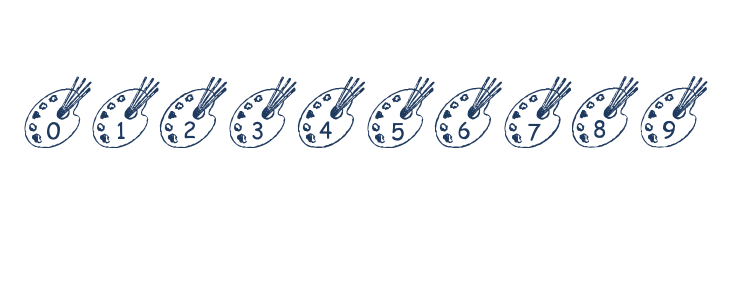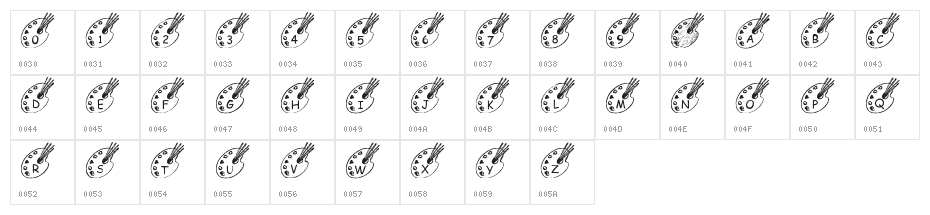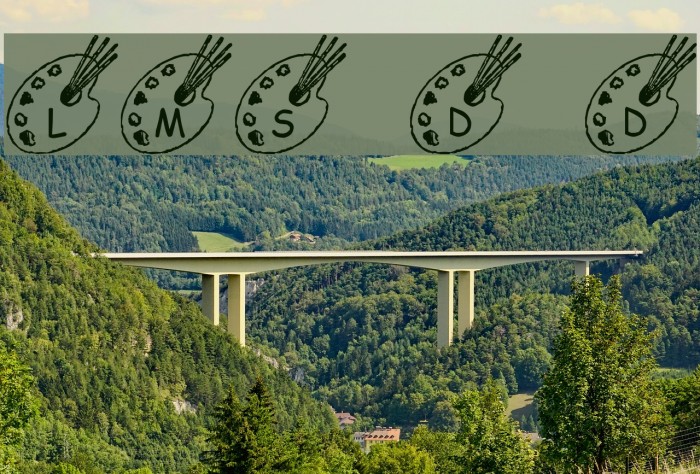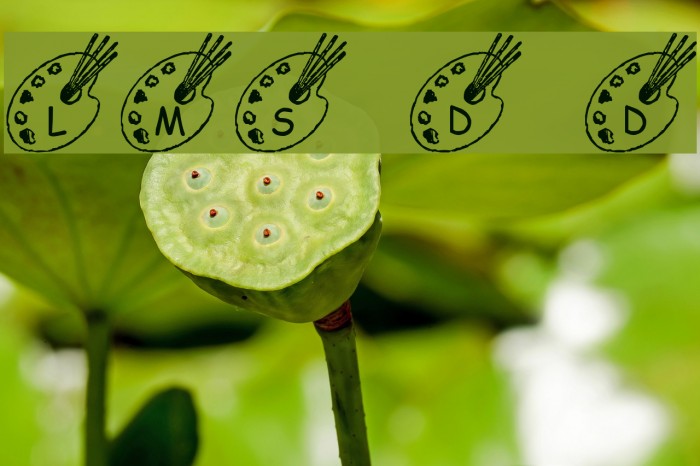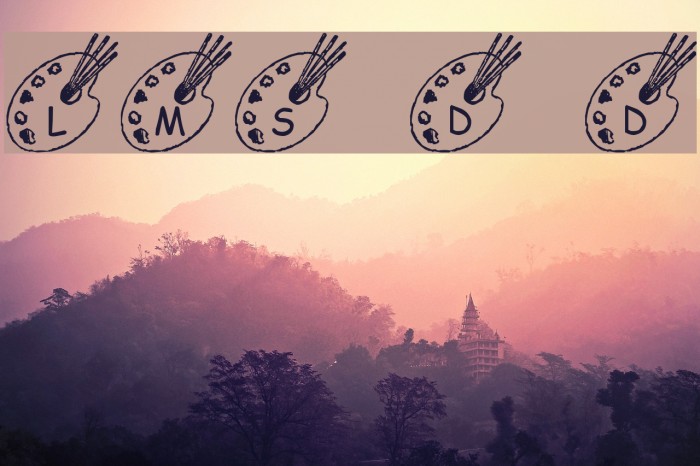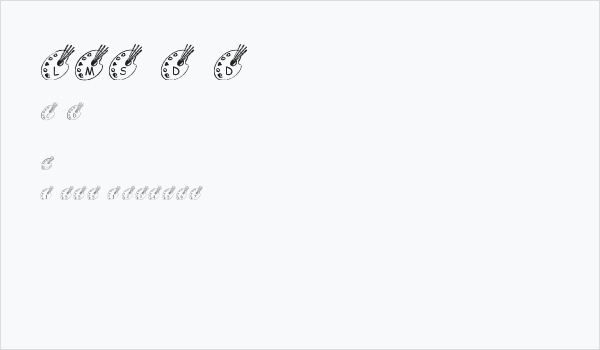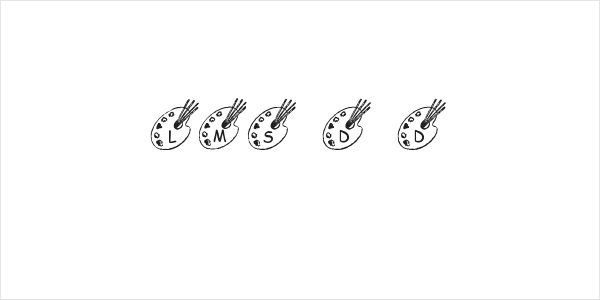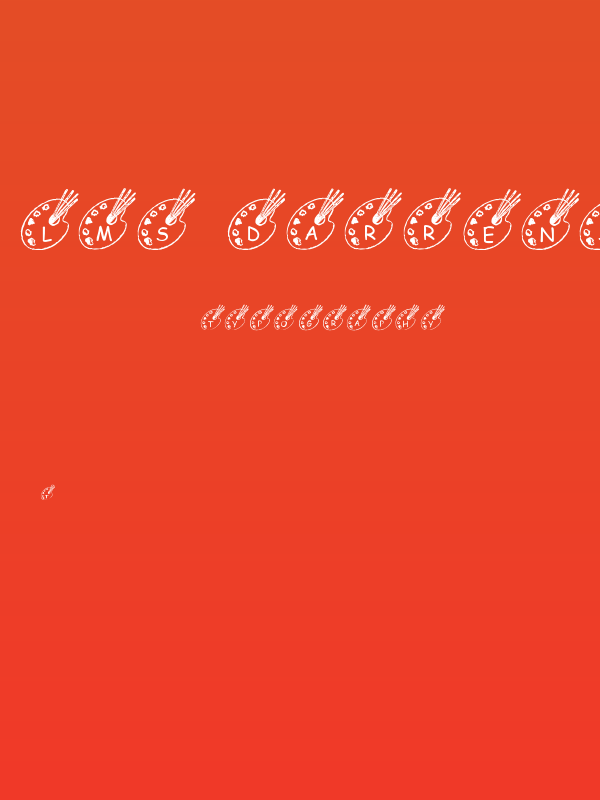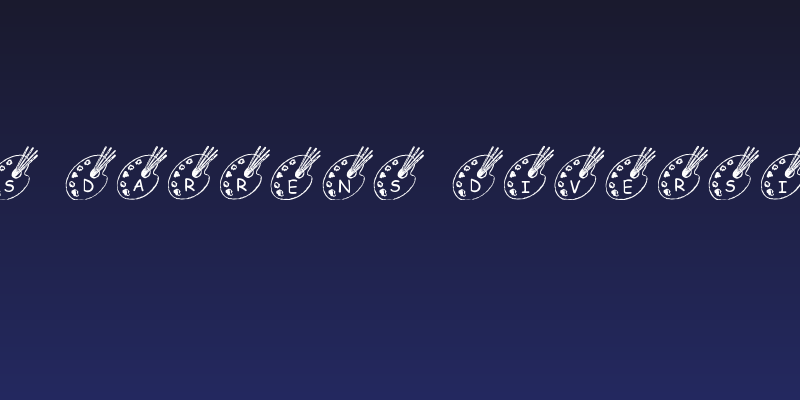
LMS Darren's Diversion Font
LMS Darren's Diversion Description
This font features a playful and artistic design, where each character is enclosed within a painter's palette, complete with paintbrushes. The letters and numbers are bold and clear, making them easily readable despite the decorative elements. The unique design adds a creative flair, making it ideal for projects that require a touch of artistry and fun. The consistent use of the palette motif across all characters provides a cohesive and visually appealing look, perfect for artistic-themed designs.
| Proposed Projects | Art-themed posters, children's book covers, creative event invitations, and educational materials. |